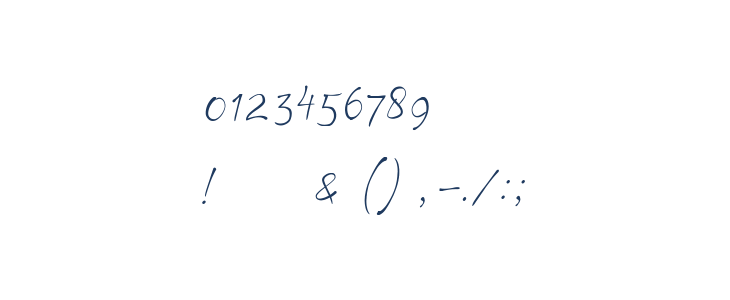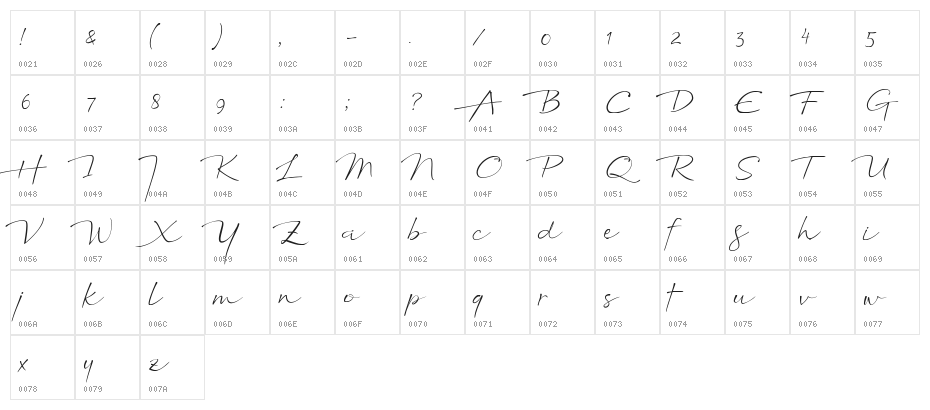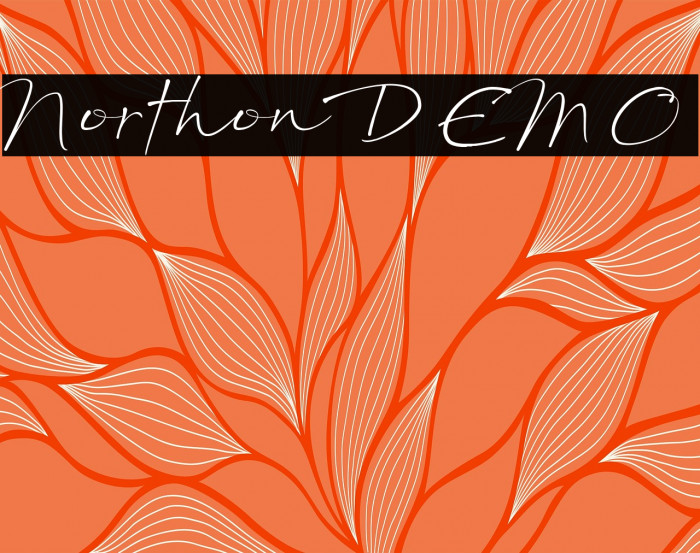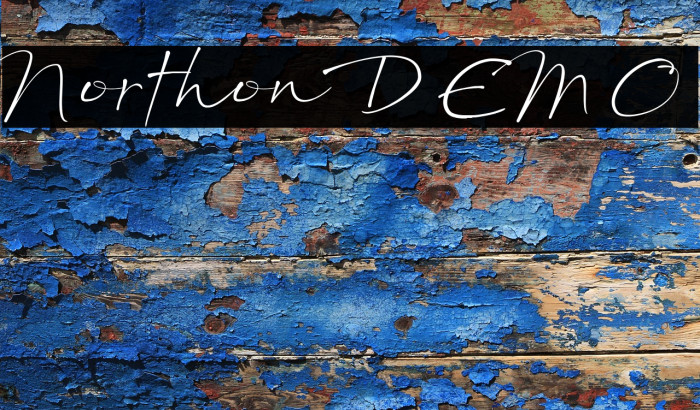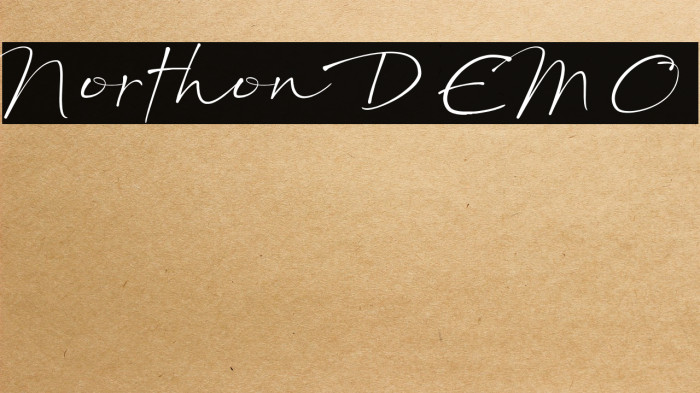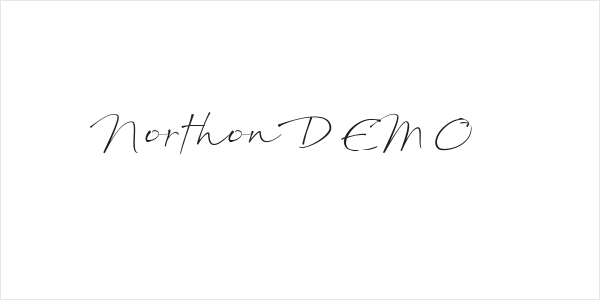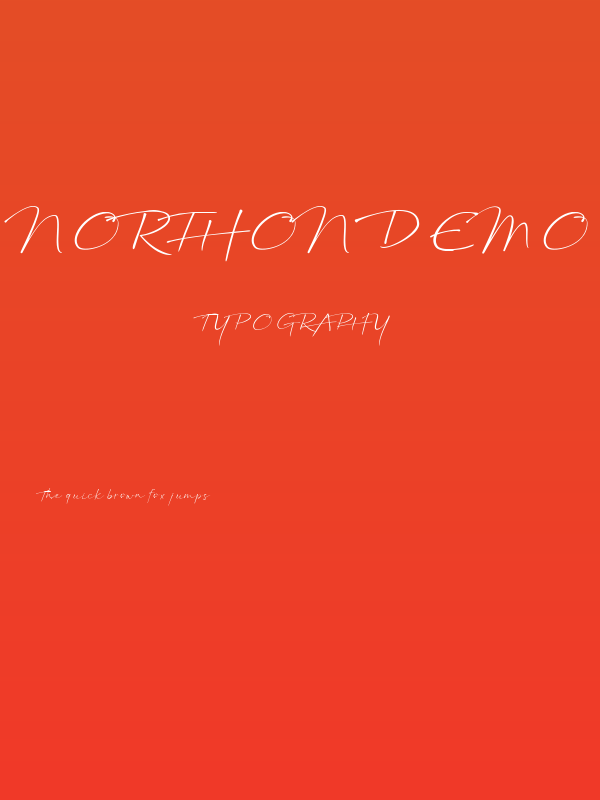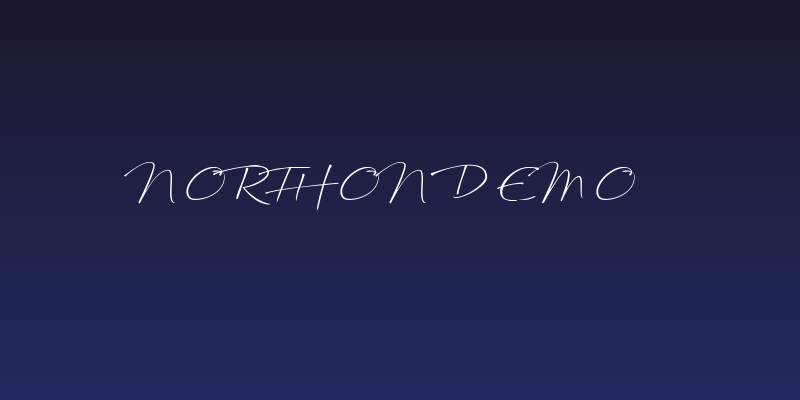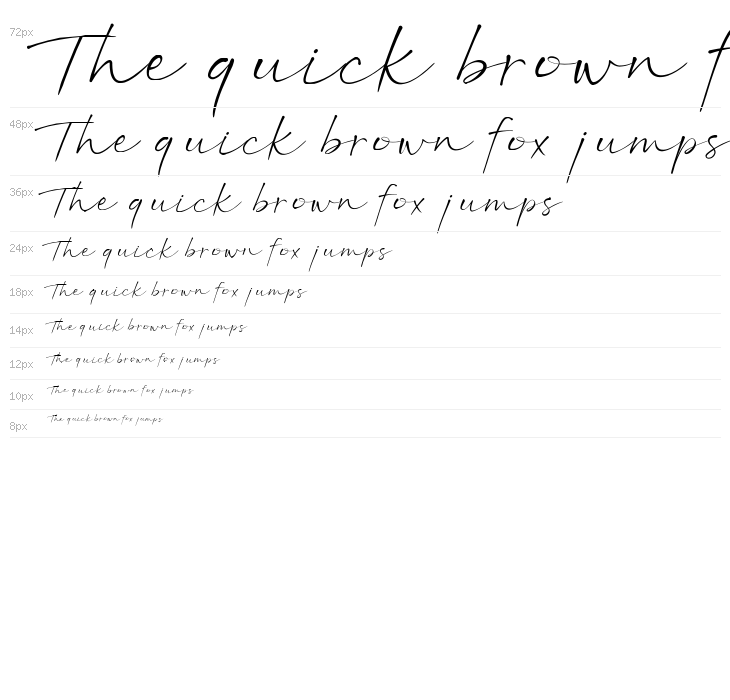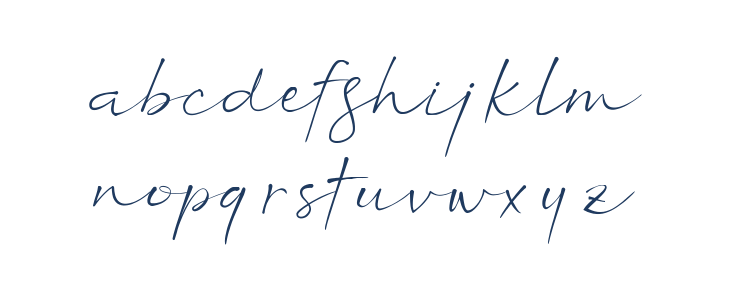
Northon DEMO Font
Northon DEMO Description
This elegant script font features a fluid, handwritten style with a modern twist. The uppercase letters exhibit a graceful flow with varying stroke widths, giving a dynamic and lively appearance. The lowercase letters maintain a consistent style, with smooth curves and a natural, cursive feel. Numbers and special characters are designed to complement the overall aesthetic, ensuring a cohesive look across all elements. The font's delicate lines and artistic flair make it suitable for projects that require a personal touch, such as invitations, greeting cards, and branding materials.
| Proposed Projects | Ideal for wedding invitations, personal branding, greeting cards, and elegant stationery. |